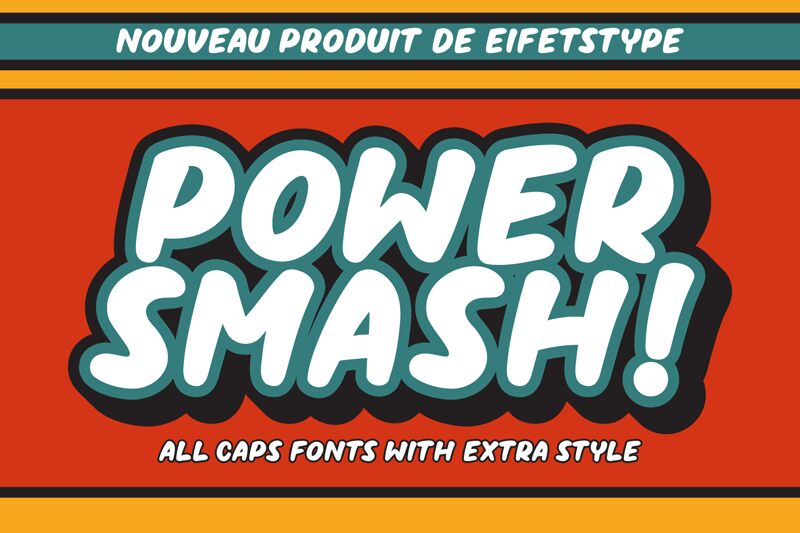
PowerSmash
Power Smash leaps off the page with a dynamic flair, capturing the spontaneous energy of comic book artistry. Crafted by Eifetstype, this font exudes boldness and vivacity that demand attention. Its playful curves and robust form make it an ideal choice for creative projects that aim to entertain and engage.
Ideal for display purposes where character is key, Power Smash lends itself effortlessly to a variety of design contexts: from the vibrant covers of graphic novels to spirited advertising campaigns, and from eye-catching logos to lively apparel designs. This font not only speaks—it shouts, bounces, and comes alive before your eyes.